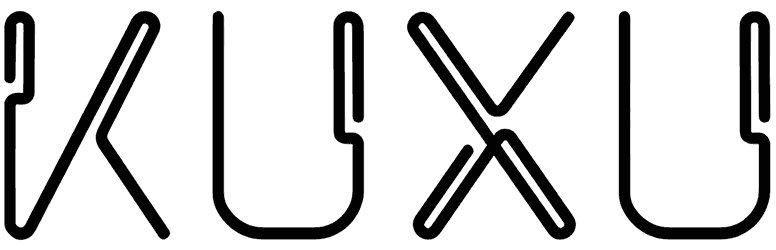
Kuxu Font
Kuxu font seems to be a sans serif font in combination with digital and string moods. Looking at it, we can feel delicacy, power, and minimalism in this font pack. Besides, two sets of capital letters of timeless font are on the verge of raising their effectiveness.
Its charm and modern lettering make it perfect for all ranges of needs like business cards, writing on photos, and jewelry packaging, but be aware that this stylish neon font was presented without lowercase letters.